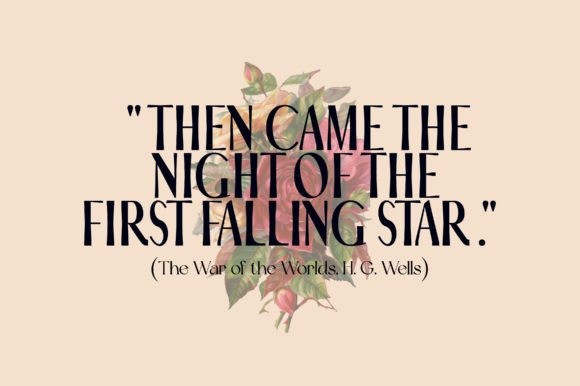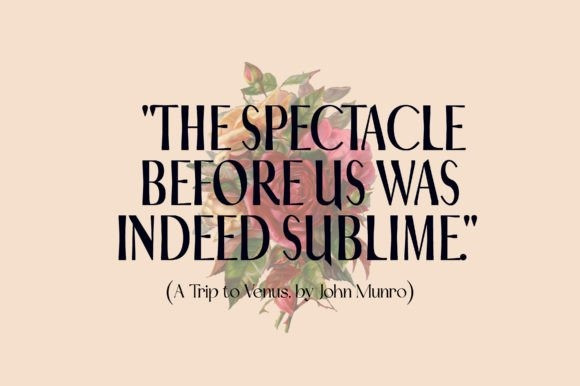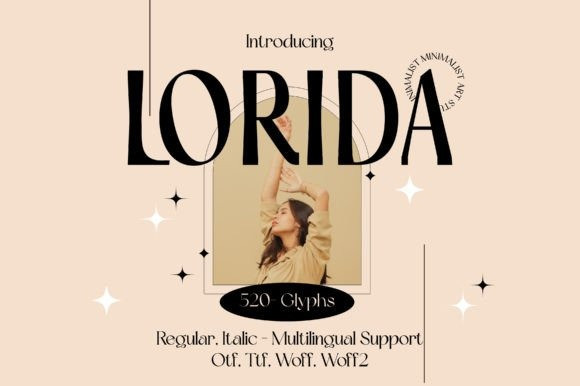
Lorida Font
Lorida Font is a Sans Serif font that embodies class, chic, and elegance. This versatile font is suitable for branding, editorial design, and advertising.